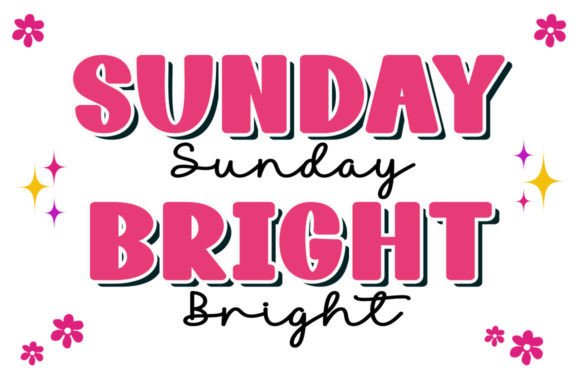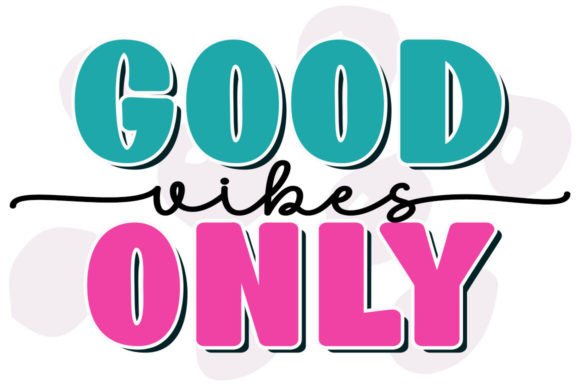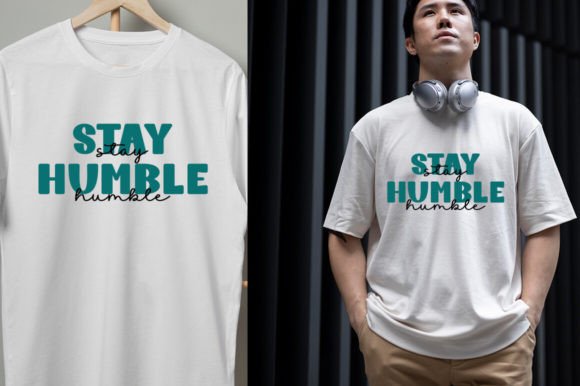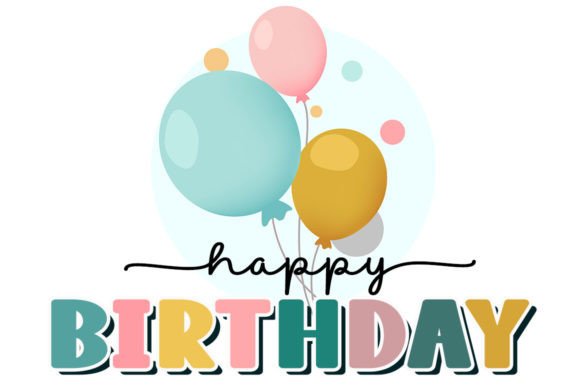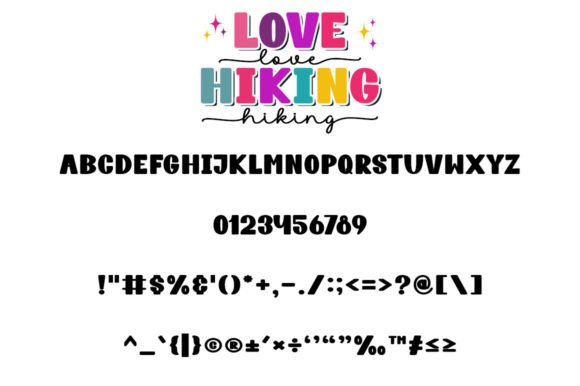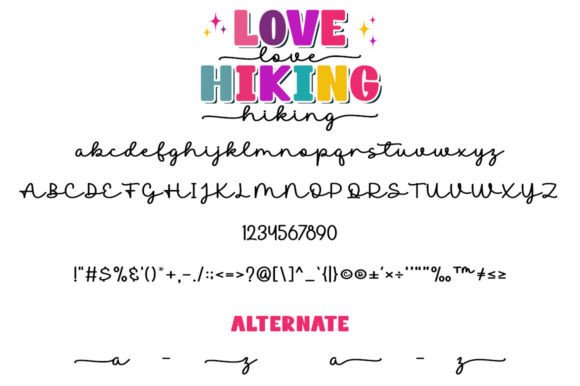
Introduction to Love Hiking Duo Font
As a designer, you know the feeling of being stuck on a creative project. You’re brainstorming ideas, but nothing seems to spark the perfect combination of style and emotion. One moment, while scrolling through design resources, a beautiful sans serif and script duo font caught my eye – Love Hiking Duo Font. Its delicate touch and romantic vibe instantly transported me to a serene hiking trail, surrounded by lush greenery and the sound of birds chirping.
Love Hiking Duo Font is more than just a pretty face; it’s a valuable asset for any designer looking to add a high-quality, emotive touch to their creations. Whether you’re designing a greeting card, a wedding invitation, or a social media post, this font will guarantee a romantic and whimsical feel that will leave a lasting impression on your audience.
With its transparent background and PUA encoding, accessing all of the glyphs and ligatures is a breeze, making it an ideal choice for designers who value ease of use and flexibility.
Key Features of Love Hiking Duo Font
- Unique Hand-Drawn Design: The Love Hiking Duo Font features a hand-drawn design that adds a personal touch to any creative project.
- High Quality Font: This font is designed to be high-quality, making it perfect for any project that requires a professional look.
- Transparent Background: The transparent background of the font allows for easy integration with any design resource, making it a versatile choice.
- Perfect for Creative Projects: The Love Hiking Duo Font is ideal for creative projects such as wedding invitations, outdoor adventure branding, and more.
Honest Review: Love Hiking Duo Font
As a designer, I was excited to try out the Love Hiking Duo Font, a free design resource that promises to add a touch of adventure to any creative project. Upon downloading, I was pleased to find that the font includes a transparent background, making it easy to use in various design scenarios.
- ✨ The font is well-designed, with clean lines and a fun, cursive feel that’s perfect for outdoor-themed projects.
However, I did encounter a few limitations with the Love Hiking Duo Font:
- ⚠️ The font is not as versatile as I would have liked, with limited character sets and no bold or italic styles.
- ⚠️ The font may not be suitable for formal or professional projects, as it has a more casual, playful feel.
Overall, I’m impressed with the Love Hiking Duo Font’s high quality and creative potential. While it may not be the most versatile font, it’s a great addition to any designer’s toolkit, especially for outdoor-themed projects.
How to Use Love Hiking Duo Font
The Love Hiking Duo Font is a high-quality design resource that offers a unique and stylish way to enhance your creative projects. With a transparent background, this font is perfect for adding a touch of elegance to your designs.
Tips for Getting the Most Out of Love Hiking Duo Font
For the best results, use the Love Hiking Duo Font in conjunction with a high-quality image or design element. This will help to create a cohesive and visually appealing design. Additionally, experiment with different font sizes and colors to find the perfect combination for your project.
The Love Hiking Duo Font is perfect for a variety of creative projects, including:
- Blog posts and articles
- Presentations and slides
- Print materials, such as brochures and flyers
Is Love Hiking Duo Font a high-quality design resource?
Yes, the Love Hiking Duo Font is a high-quality design resource that’s perfect for a variety of creative projects. With its clean and modern design, it’s ideal for use in logos, branding materials, and other design elements. The font is also highly customizable, making it a great choice for designers who want to add a unique touch to their work.